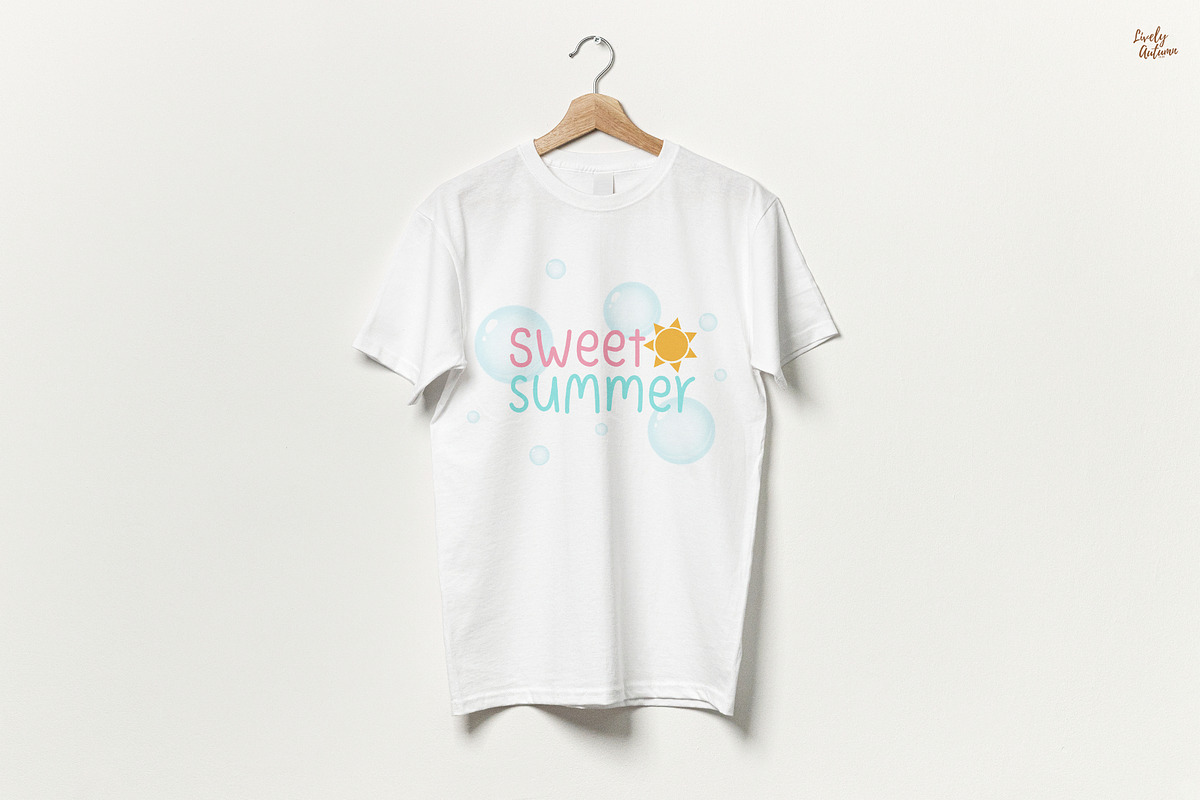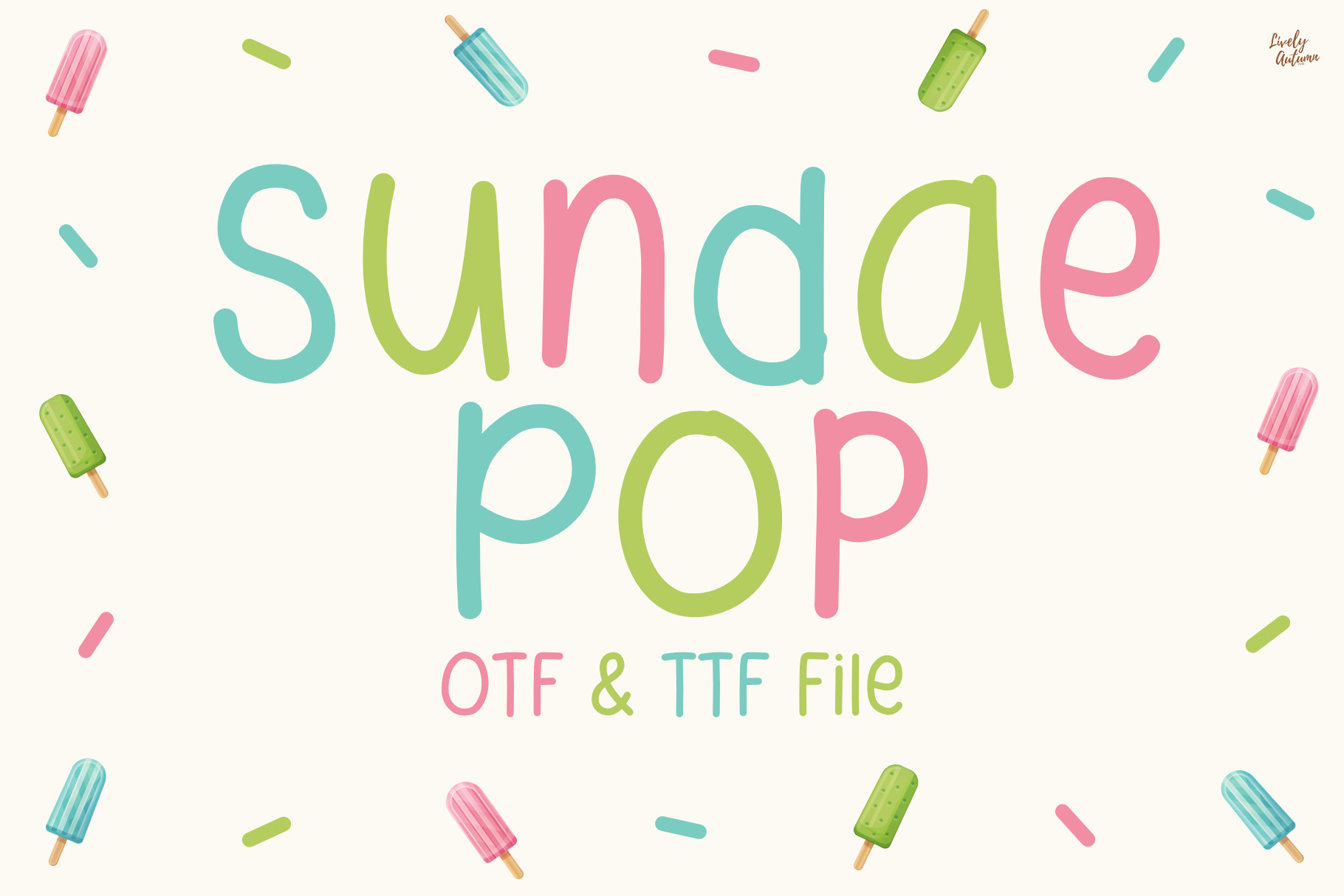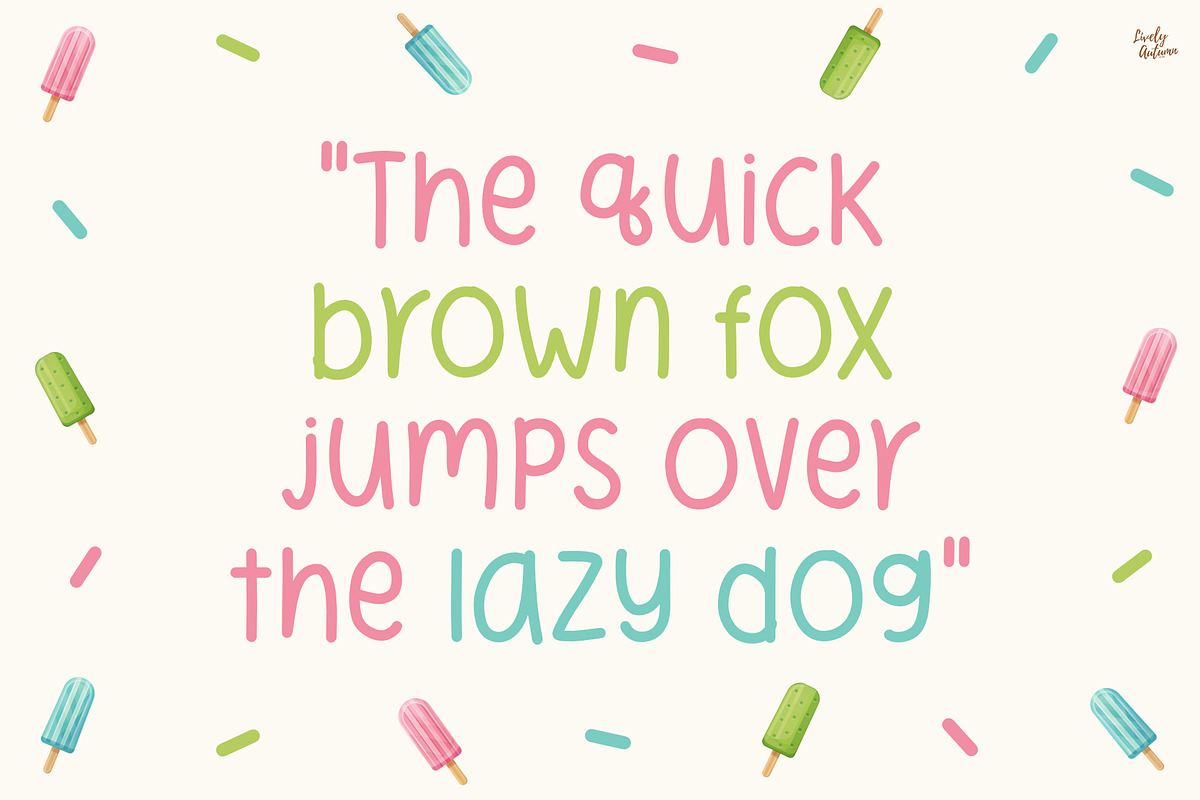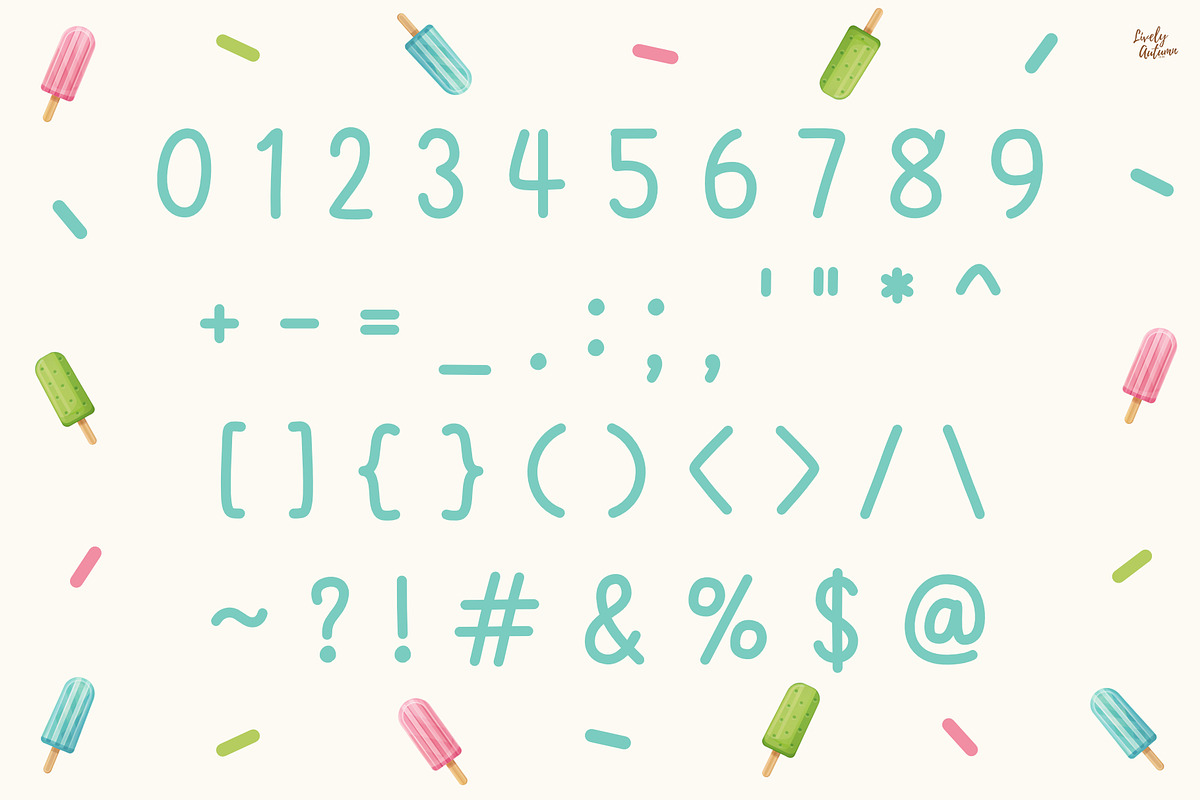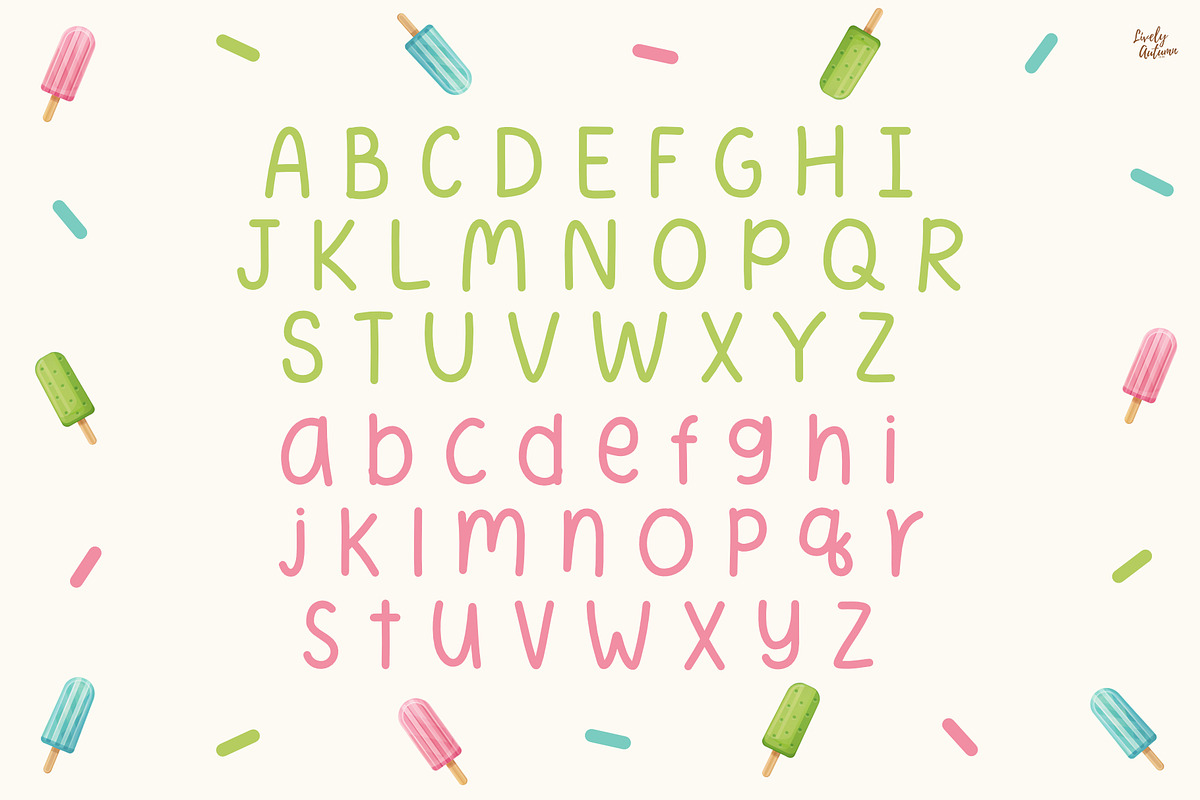
Sundae Pop | Handwriting font
Sundae Pop Font is a playful and cute handwritten font that has the same height for uppercase and lowercase letters. Perfect for your personal projects and various projects. From invitations to posters, social media graphics, journals, stickers and much more.
- Font includes: uppercase, lowercase, numbers, and punctuation